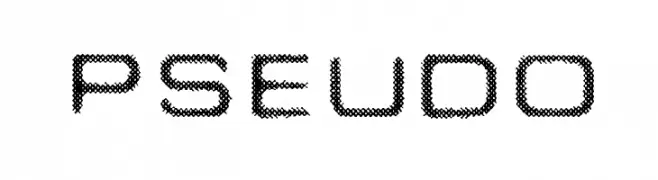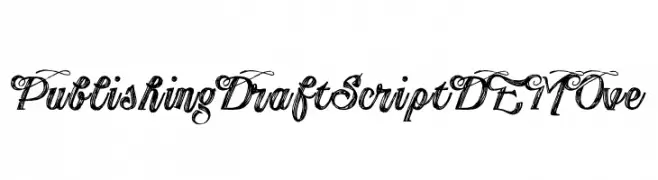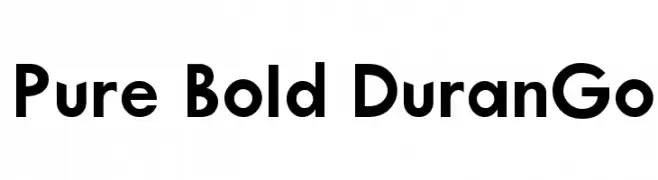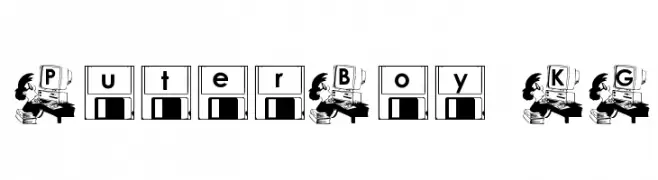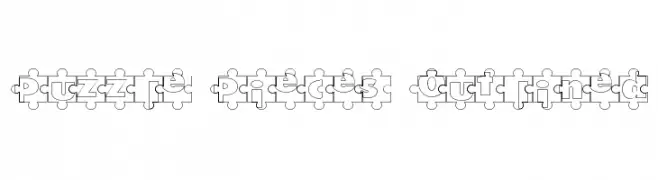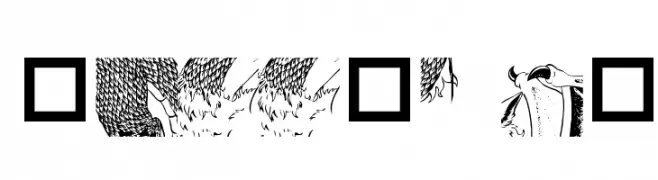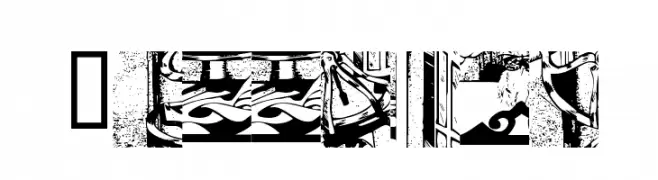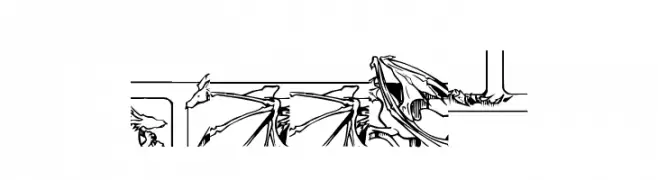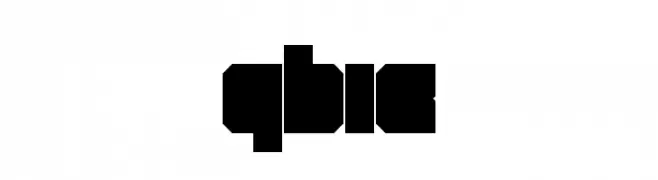
A modern, sleek font with a futuristic and uniform design.
An ornate and decorative script font with bold strokes and intricate flourishes.
A bold, modern sans-serif font with clean lines and strong presence.
A whimsical font with characters integrated into computer-themed designs.
A playful, puzzle piece-themed font with bold outlines and interconnected characters.
Rows of thick-bordered square placeholders, some with partial internal patterns.
A decorative font with intricate, artistic designs within each character.
An ornate, decorative font with intricate floral embellishments.
A bold, geometric font with a blocky, industrial style.
A bold, geometric, and italic font with a modern, edgy style.